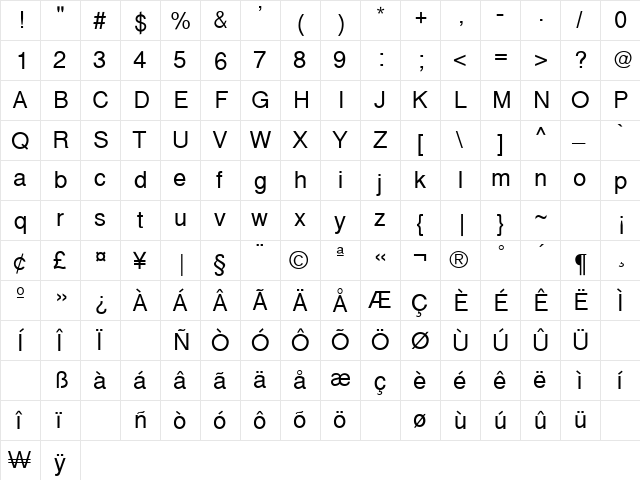
Helvetique Regular
Design Context for Helvetique Typeface
Helvetique offers clean, dependable letterforms without strong stylistic allegiance, making it a practical choice for designers who need flexibility.
Pro Tip: Use Helvetique in both headline and body roles to test its range before committing to a single application.